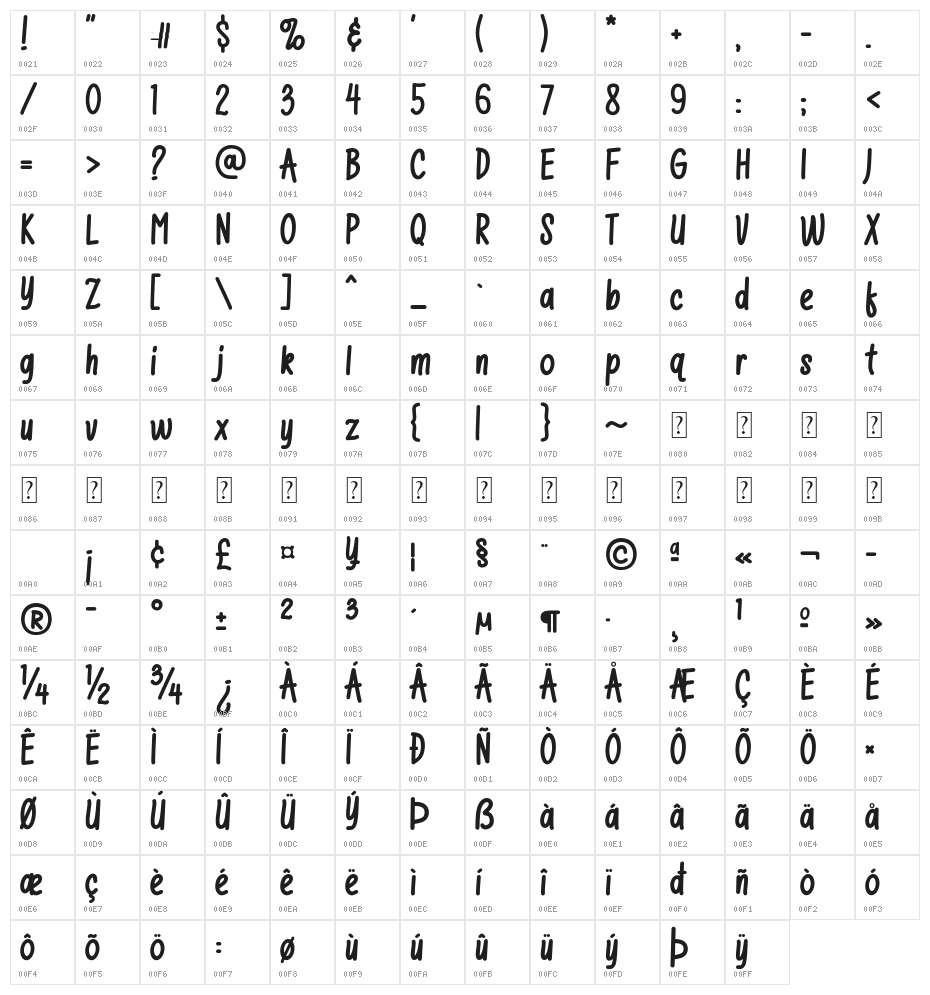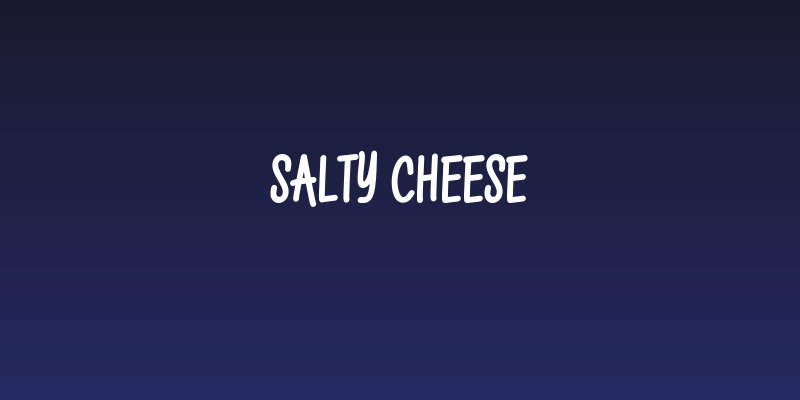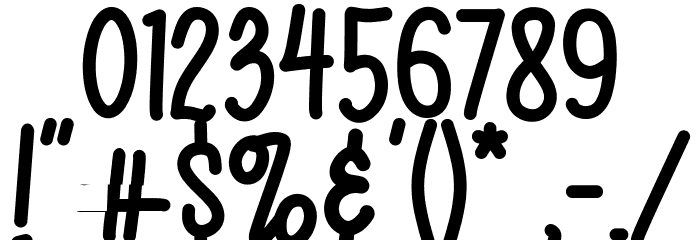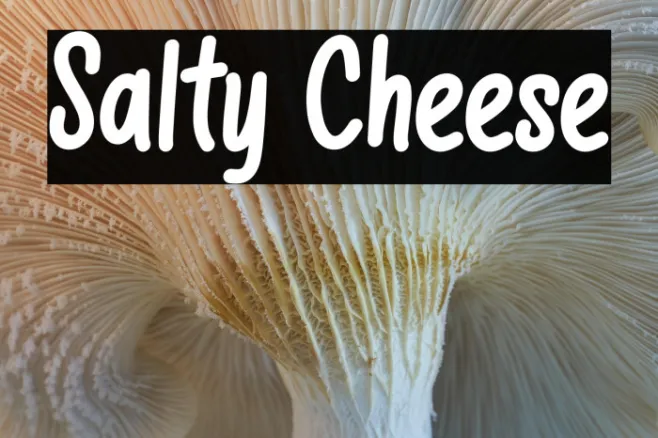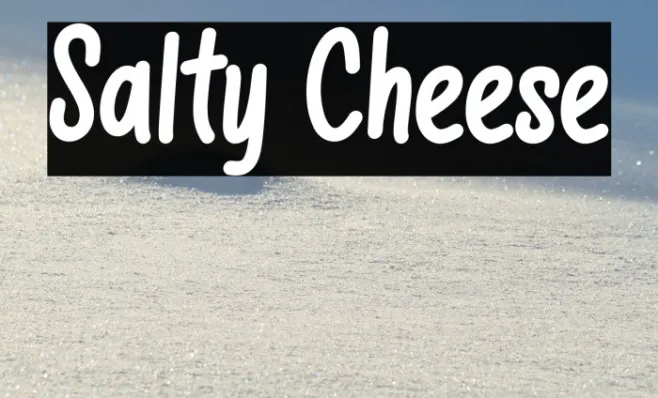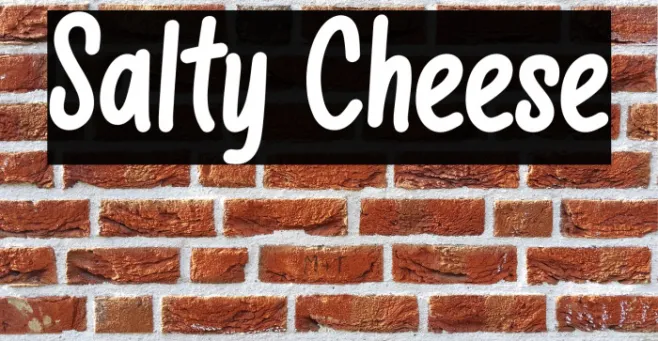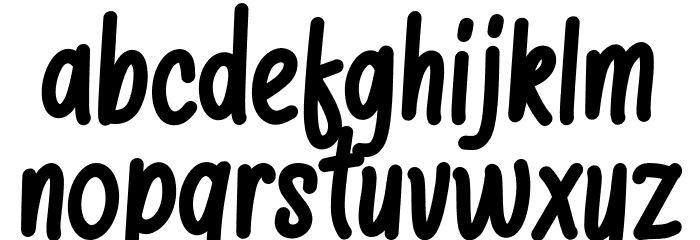
Salty Cheese Font
Salty Cheese Description
This playful and bold font features a handwritten style with a lively and energetic appearance. The letters are slightly slanted, giving a casual and informal feel. The strokes are thick and rounded, contributing to its friendly and approachable look. The uppercase and lowercase characters maintain a consistent style, with a slight variation in size and shape that adds to the font's charm. The numerals and special characters are designed to match the overall aesthetic, ensuring a cohesive look across all text elements. This font is ideal for projects that require a fun and engaging visual impact.